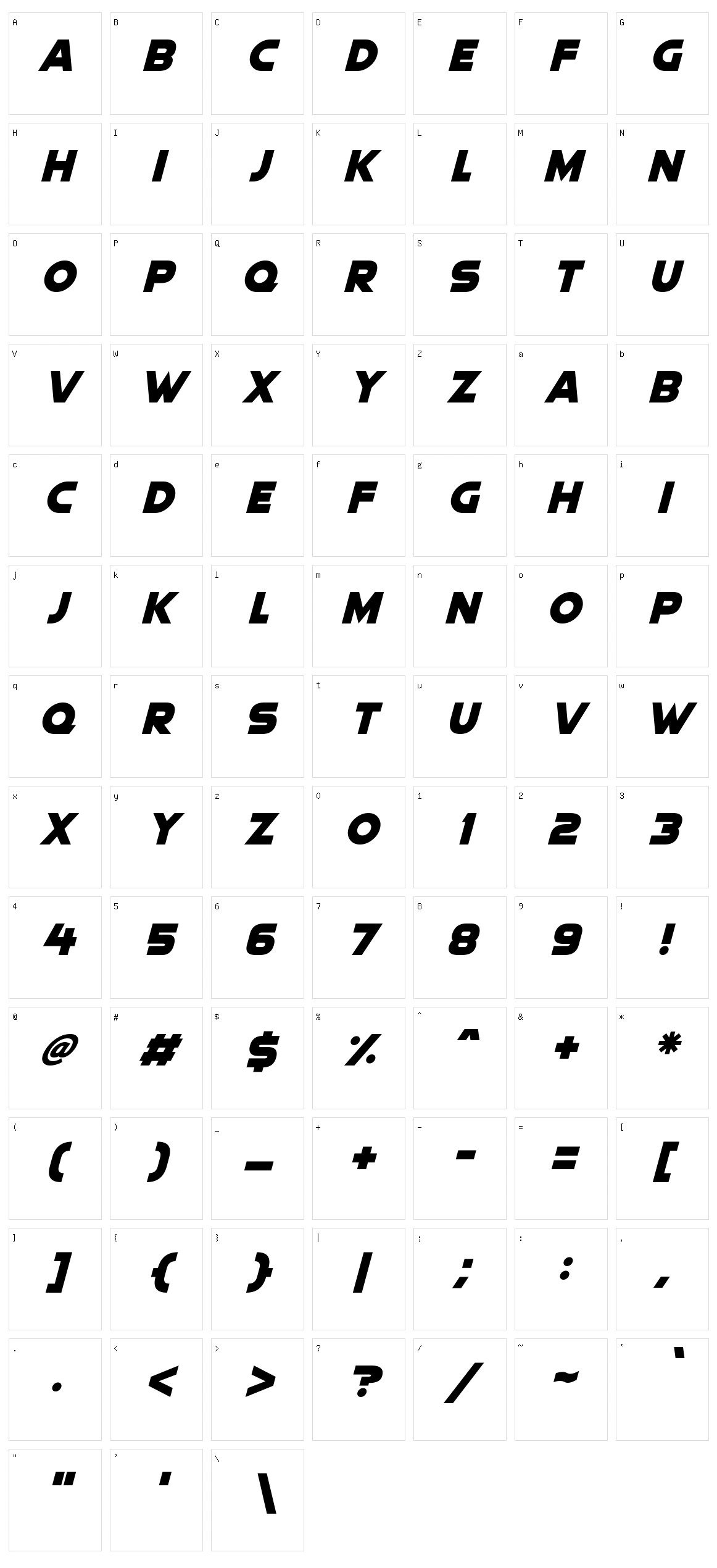
The free font Quicksilver is carefully designed by Hawtpixel, showcasing a thoughtful balance of creativity and usability and falls under the Sans serif font style. When you download the ZIP file, it contains only 82.13 KB of font files, making it lightweight and quick to download. Please review the license details below to understand permitted usage and distribution rights. If license information is not available, we recommend using this font for personal projects only or contacting the author directly for commercial usage permissions.
Quicksilver - the ultimate ultra-bold, high impact font!